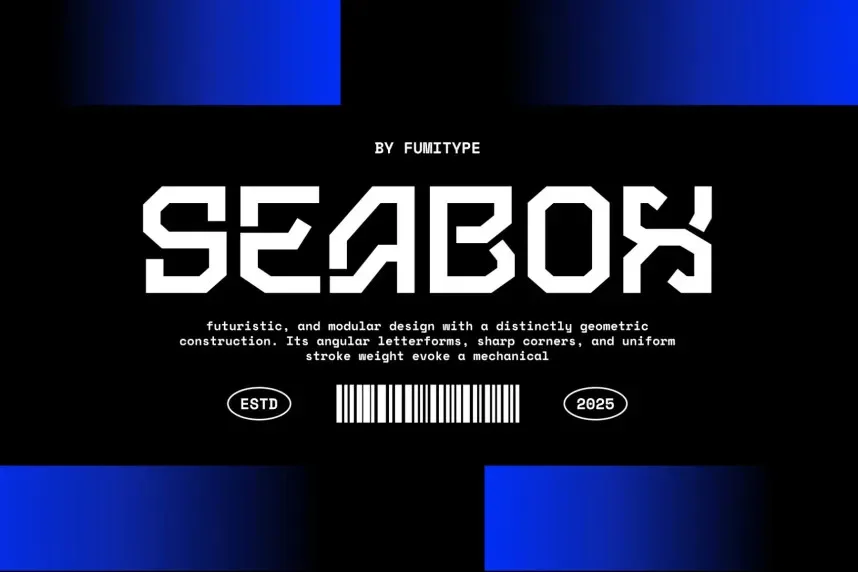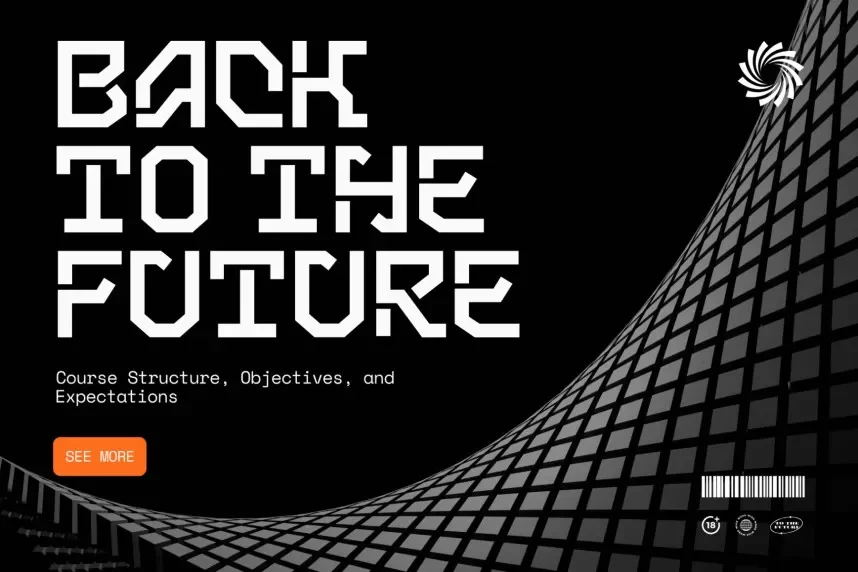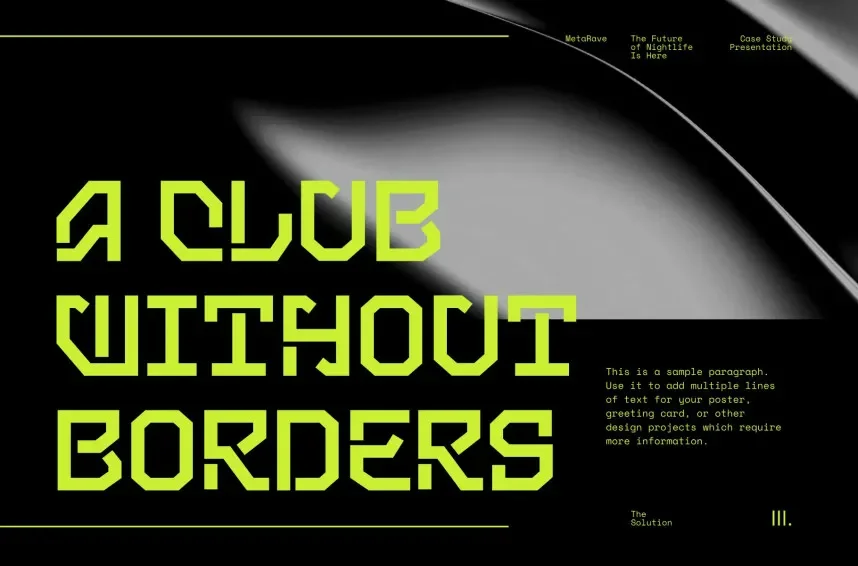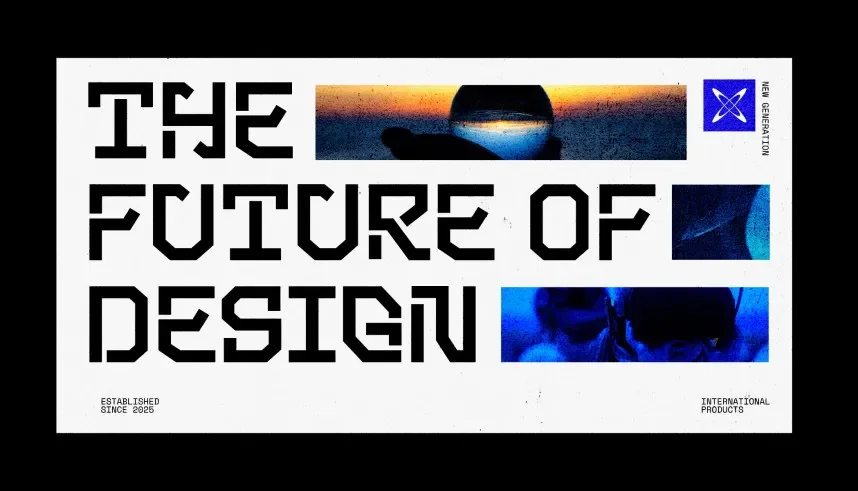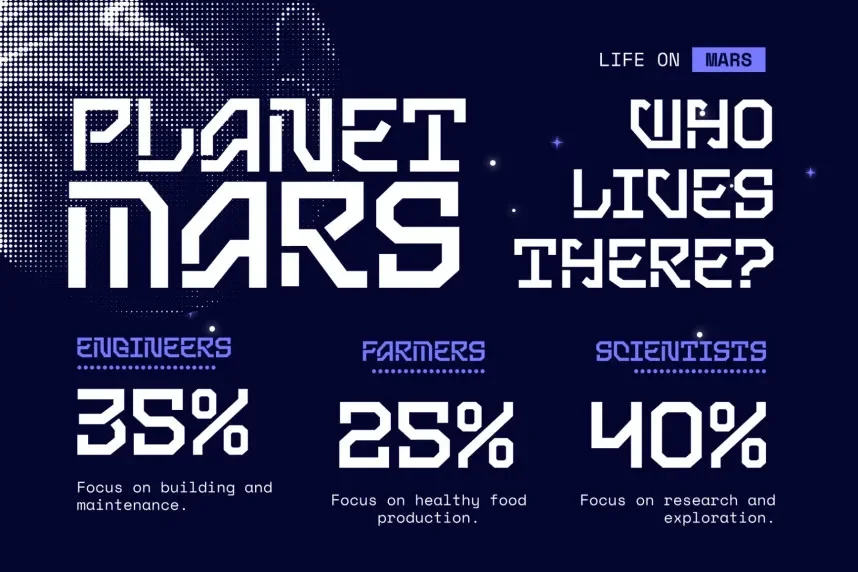
Seabox Font addresses the challenge of creating readable, versatile designs where geometric simplicity is required. Many sans-serif fonts struggle to maintain clarity across digital and print applications.
Seabox is a sans-serif typeface with uniform stroke width, open counters, and slightly rounded terminals. The letterforms combine minimalism with subtle geometric precision, supporting clear readability in both small and large sizes.